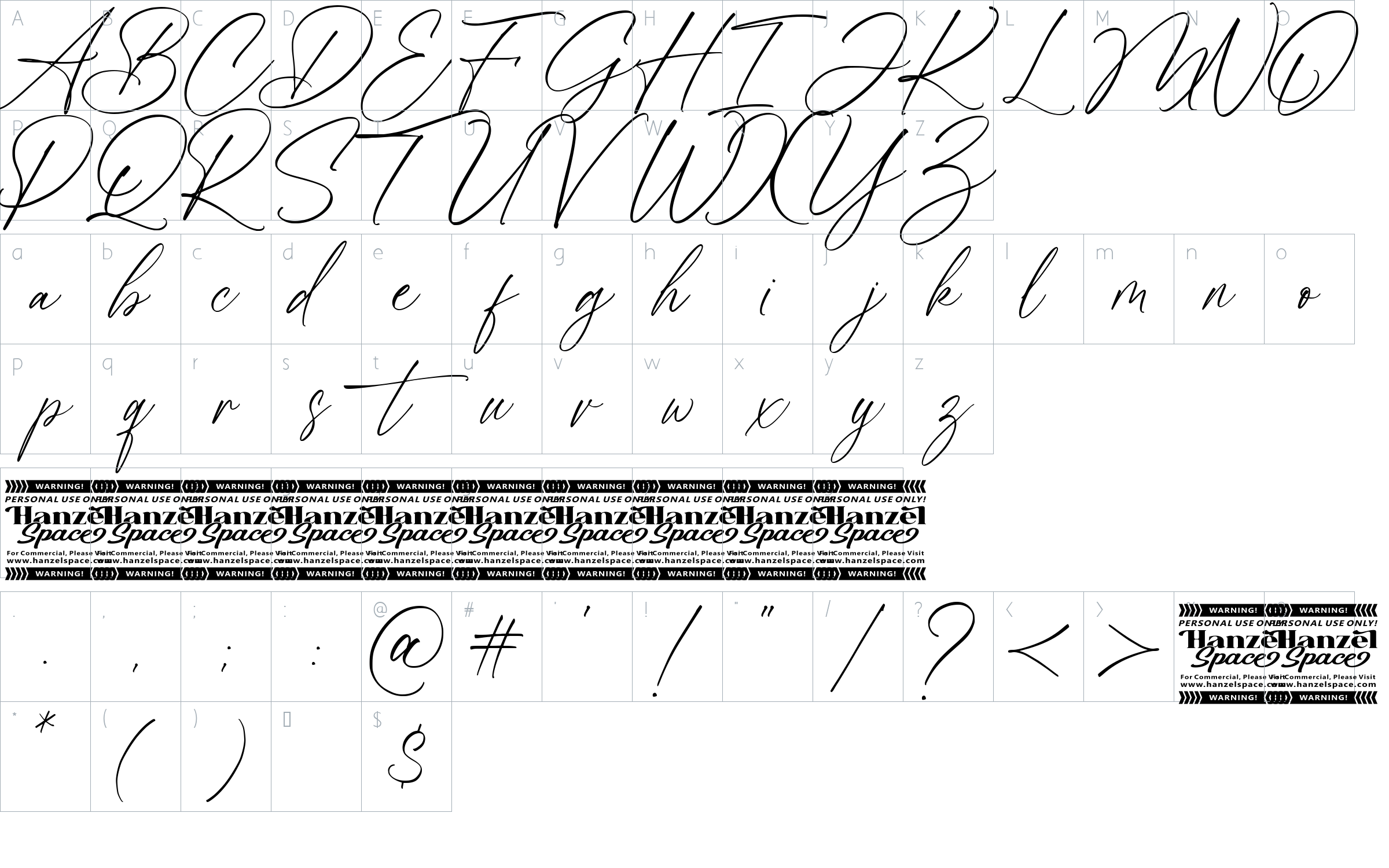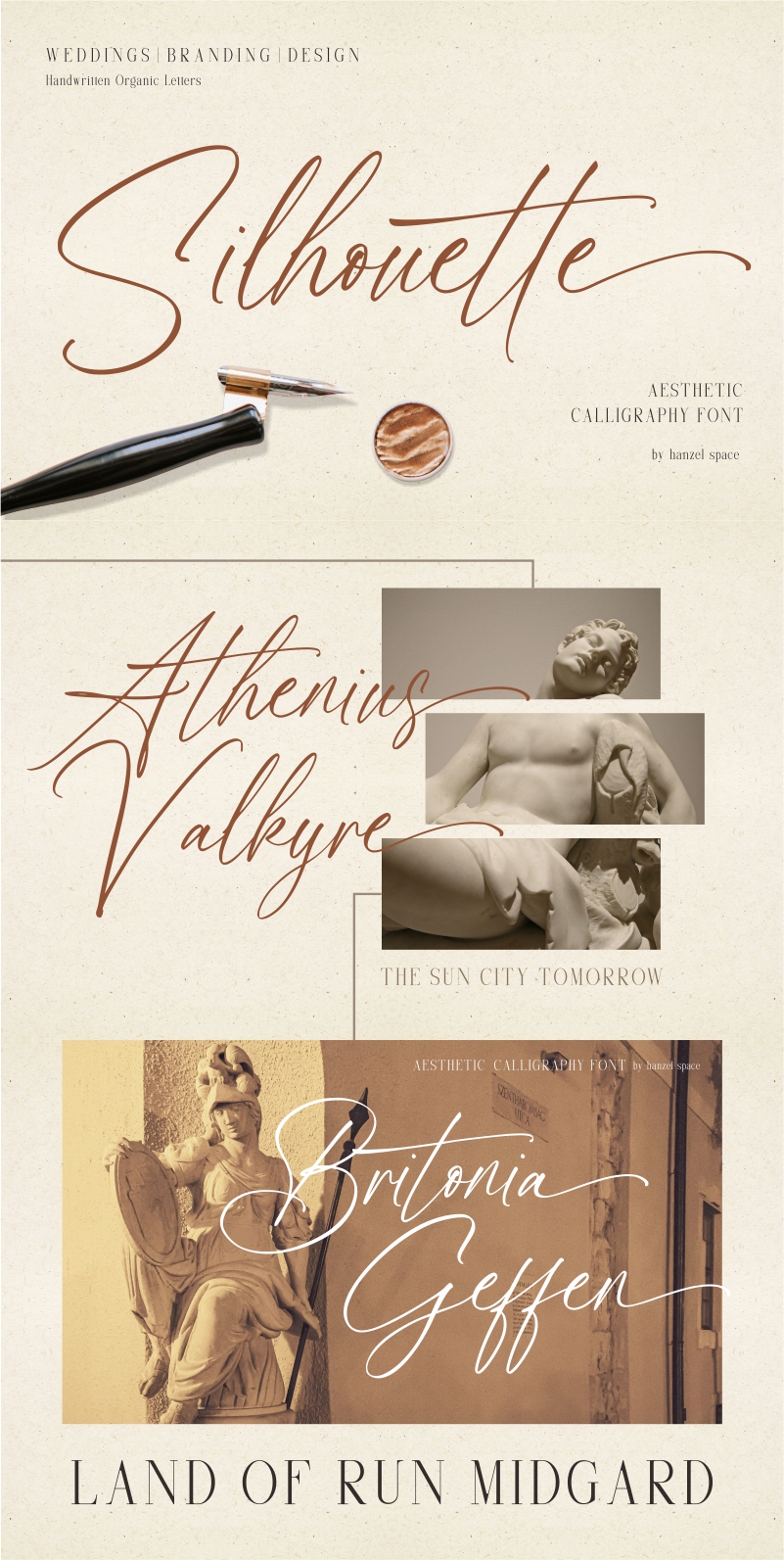
Silhouette - Aesthetic Calligraphy Font Font
About Silhouette - Aesthetic Calligraphy Font
Introducing Silhouette - Aesthetic Calligraphy Font
Silhouette - Aesthetic Calligraphy Font with contemporary, sophisticated accents. It is perfect for branding, wedding invites, tagline, cards, maybe for label and logo.
Silhouette includes full set of gorgeous uppercase and lowercase letters, numerals, a large range of punctuation and ligatures. It expresses beauty of handwriting. What you get
• Standard Ligatures
• Numerals and Punctuation